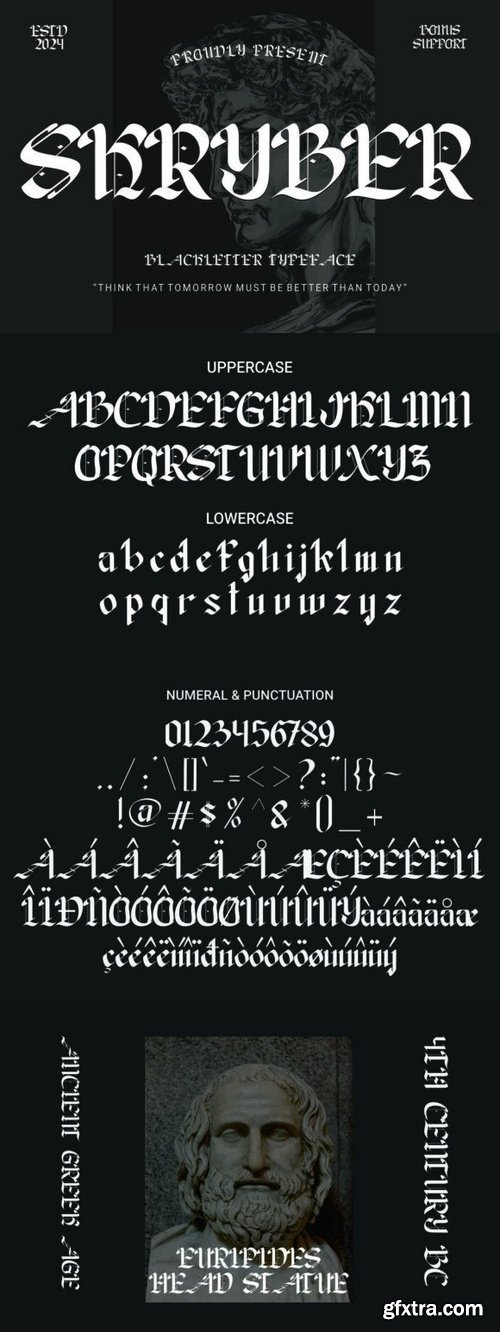
Skryber Font
- Skryber is a blackletter font that exudes an eerie and intimidating aura with its sharp and pointed letterforms. This font is perfect for gothic or horror-themed designs, making it an ideal choice for projects seeking a menacing vibe.